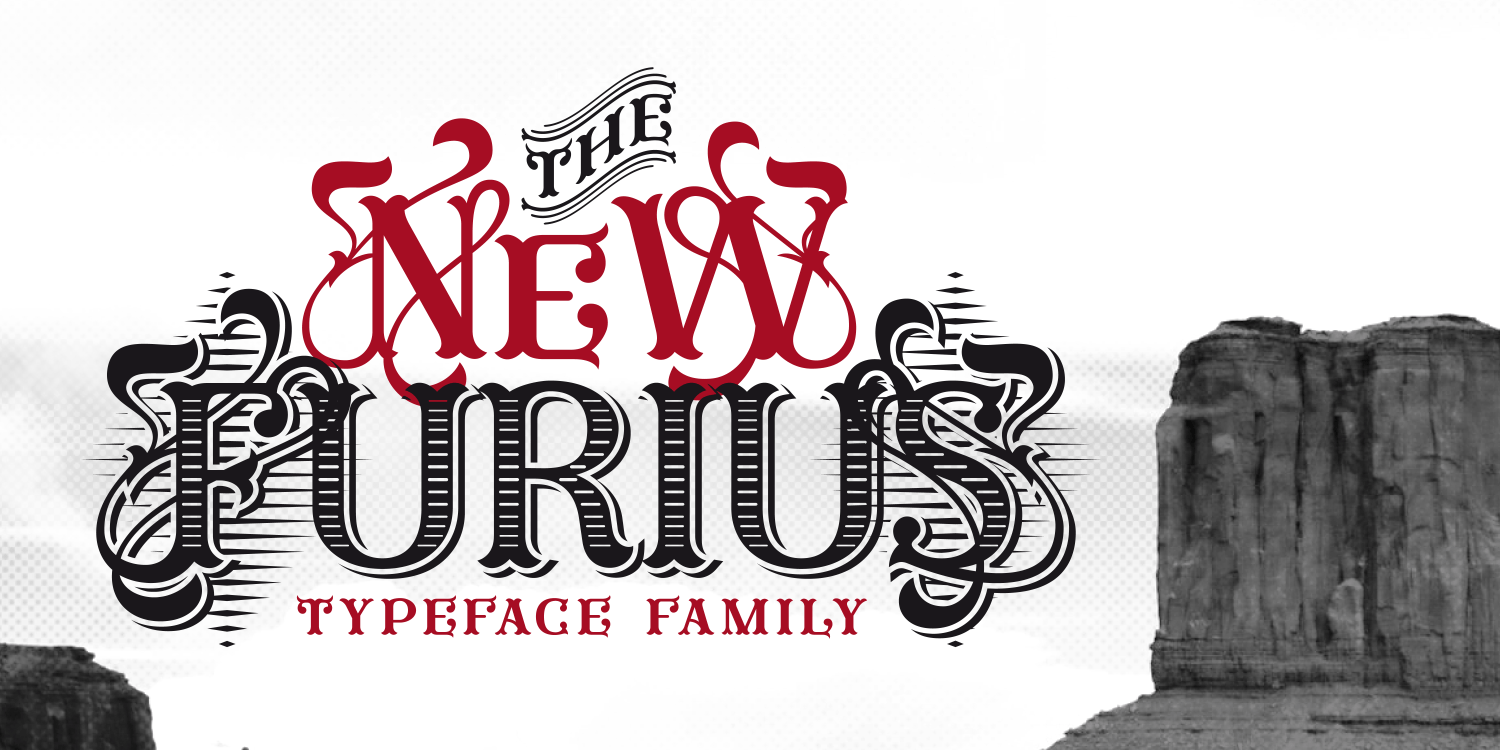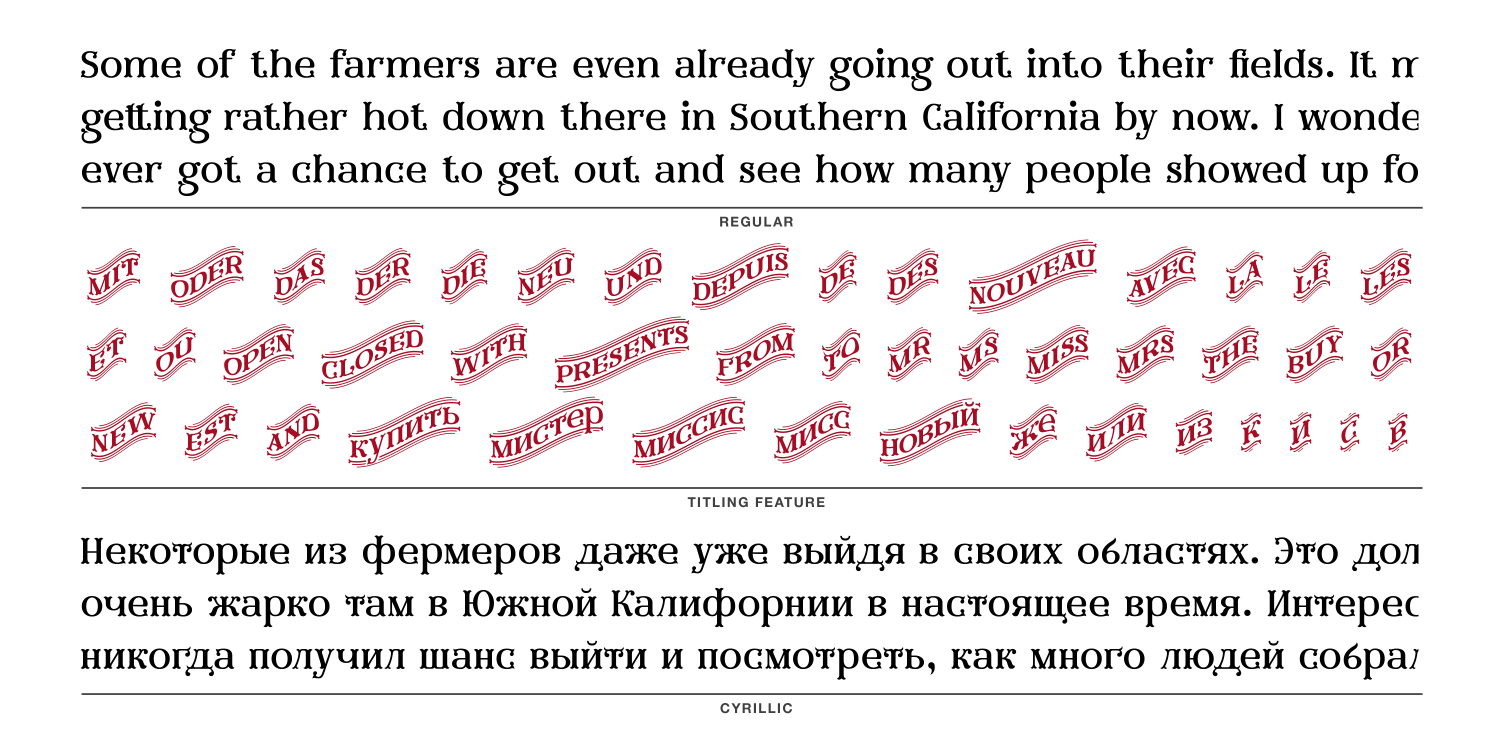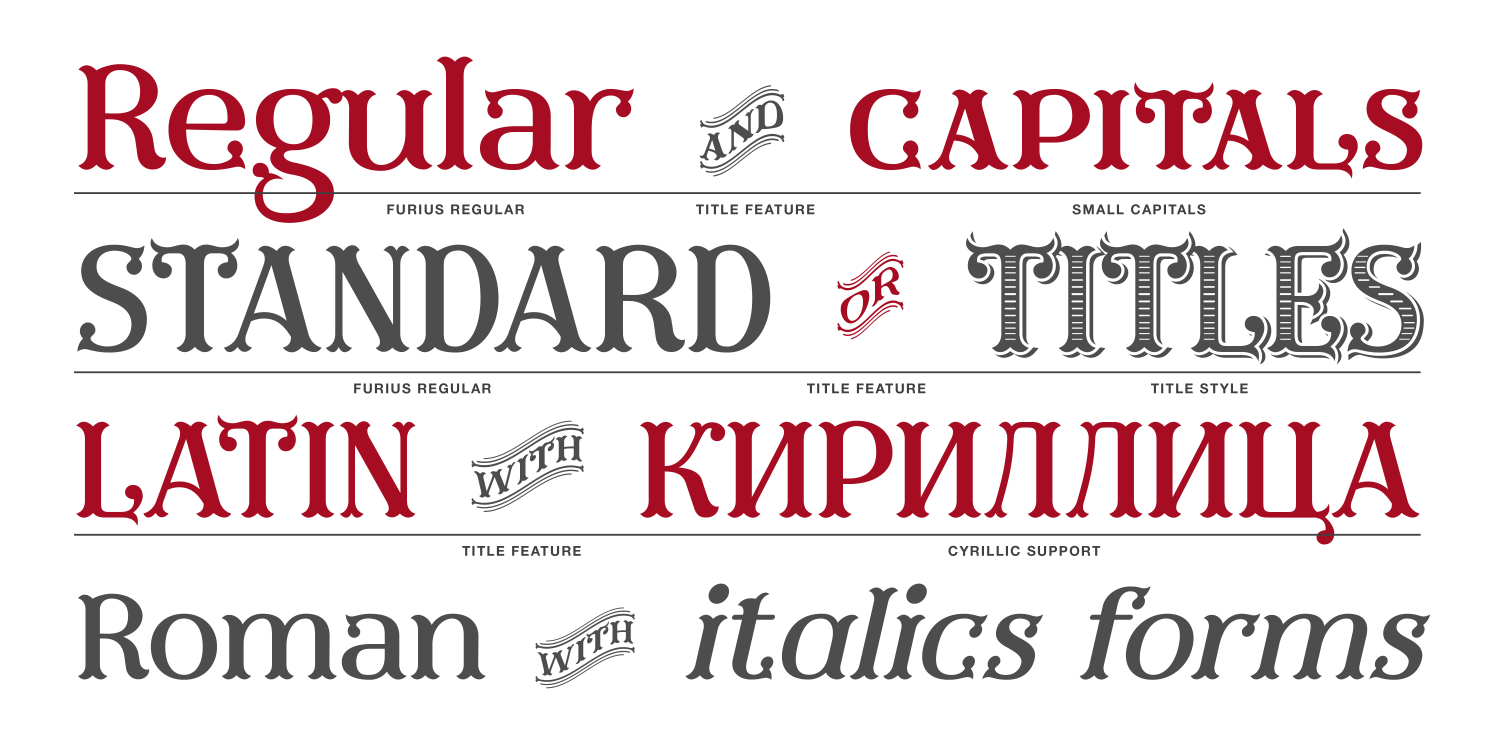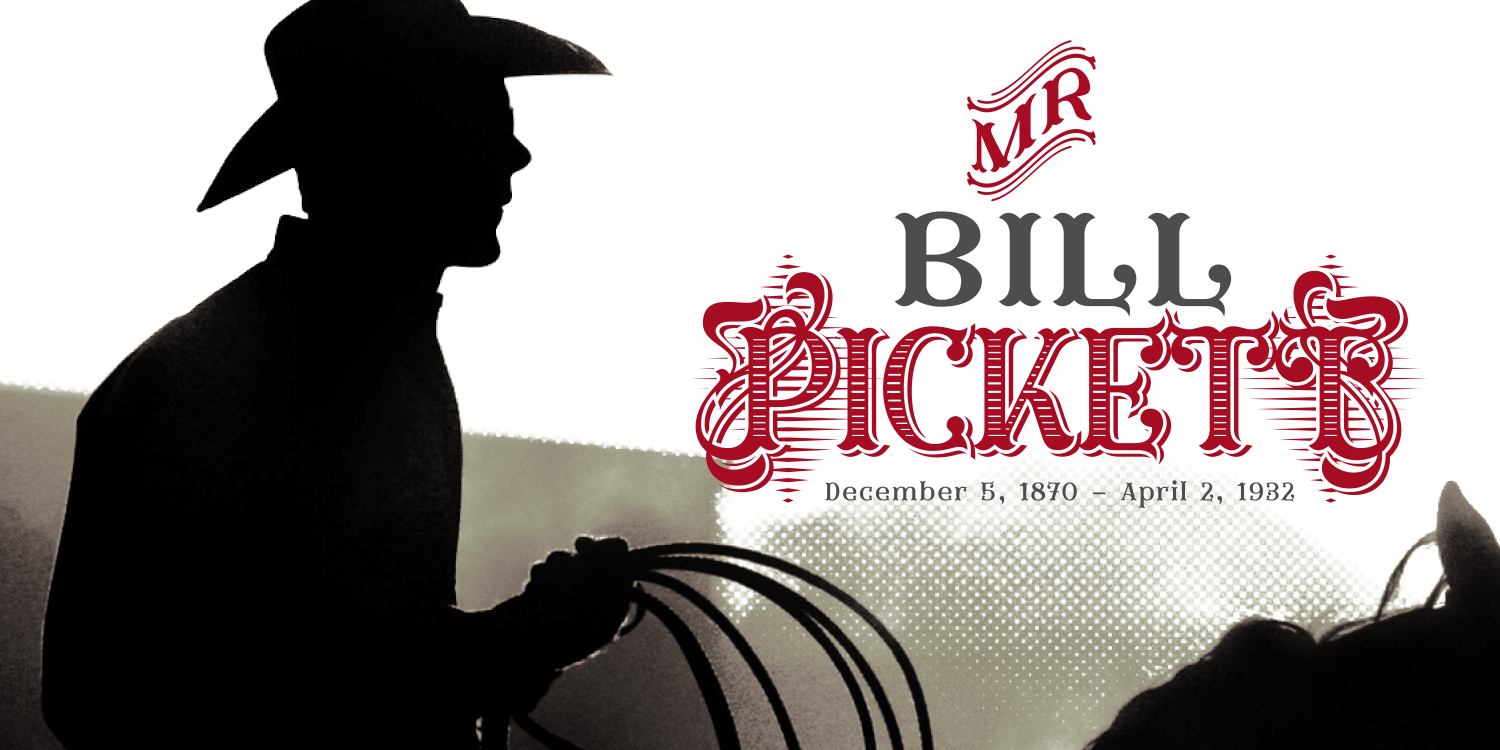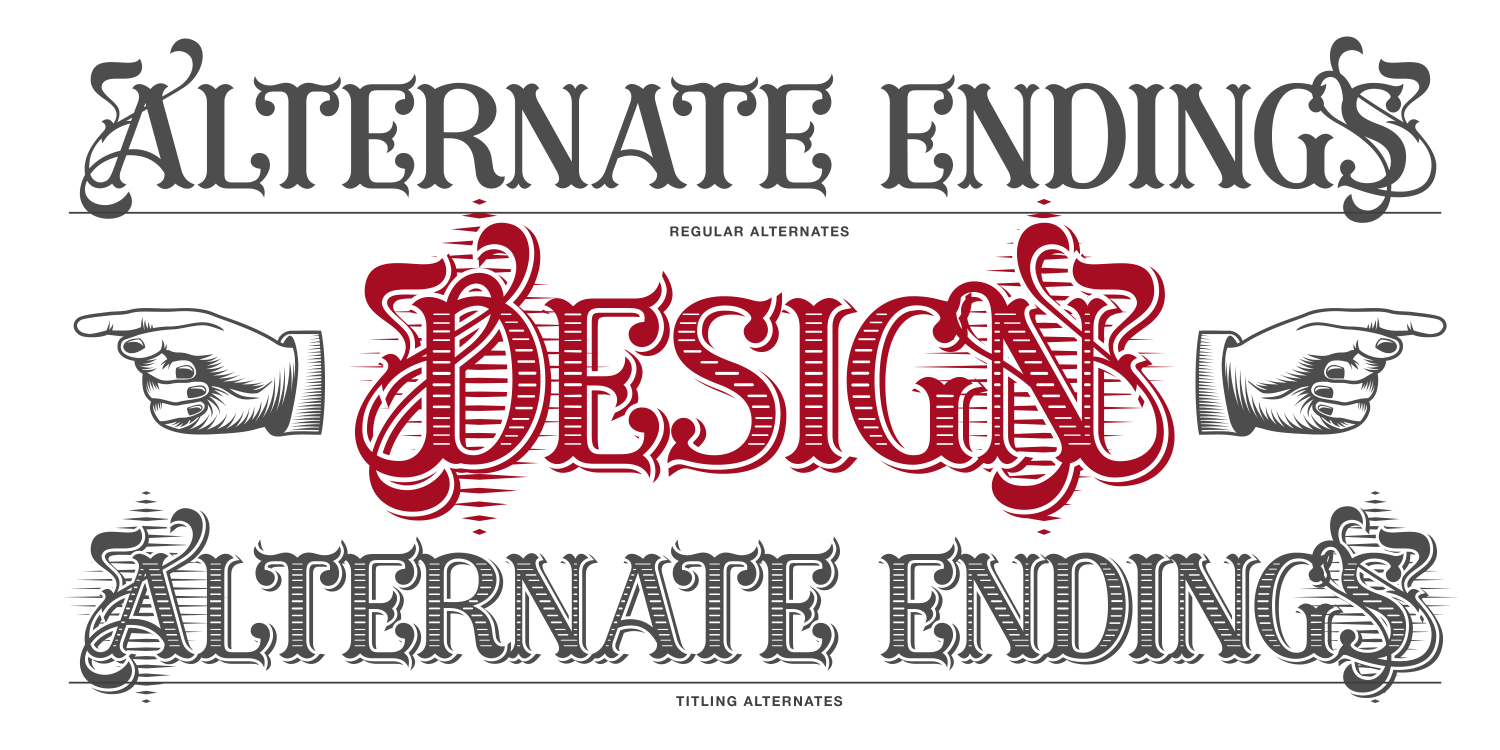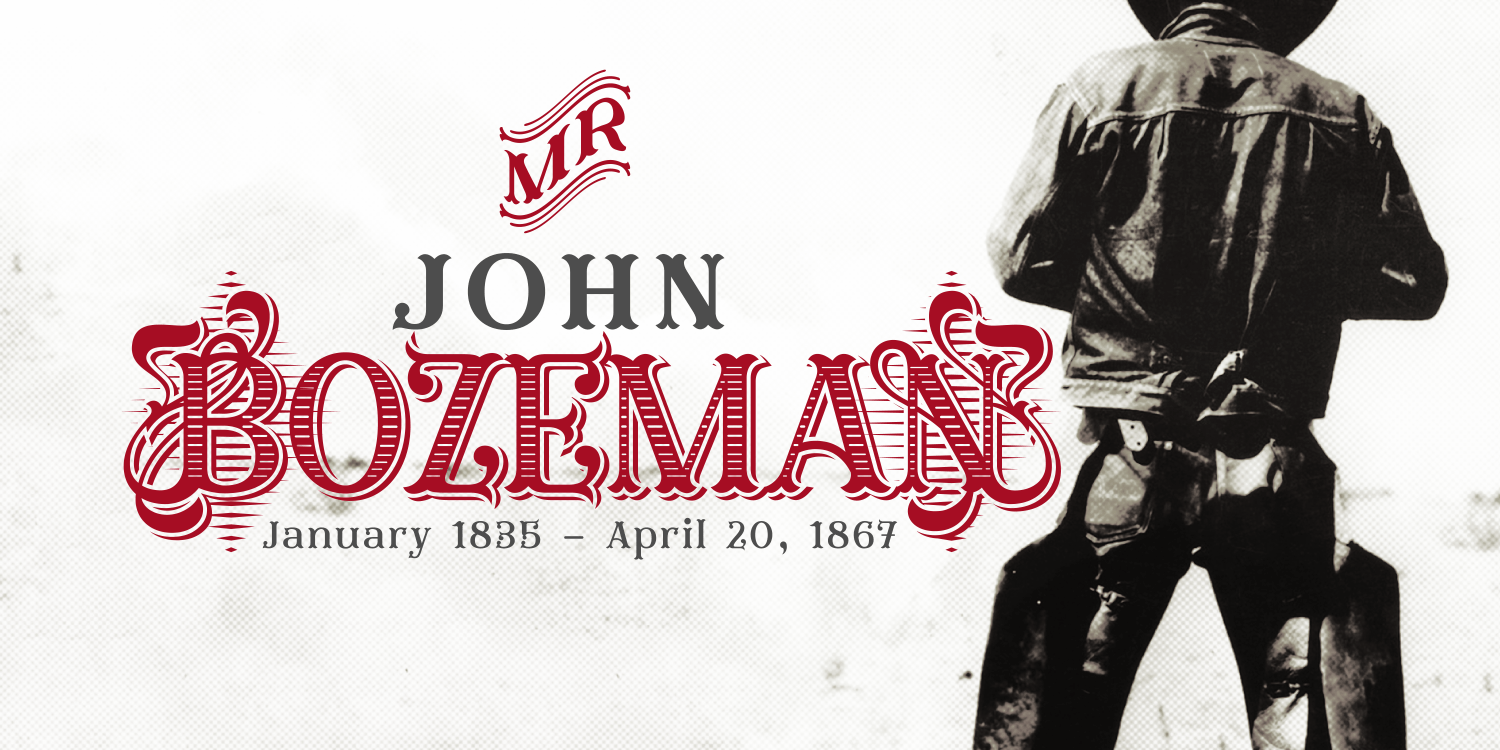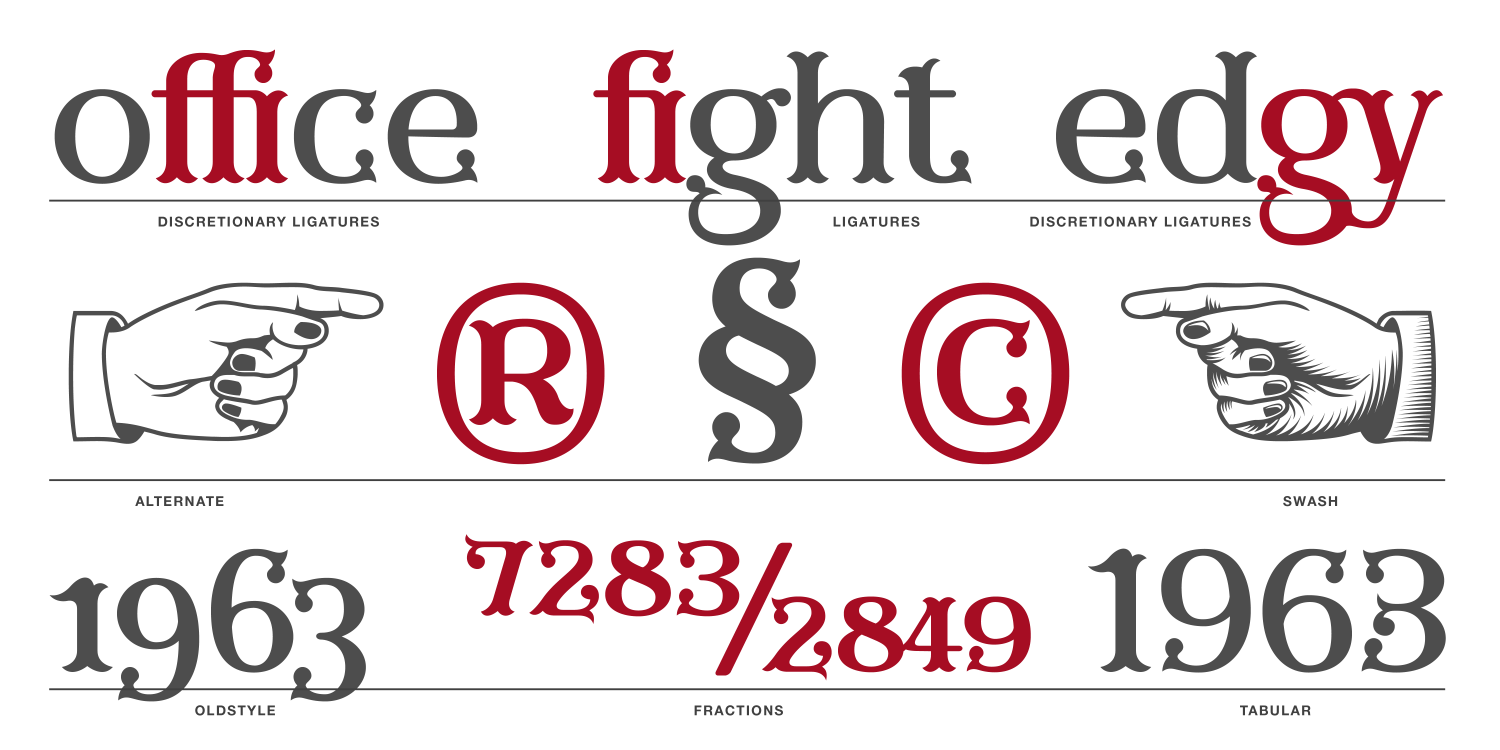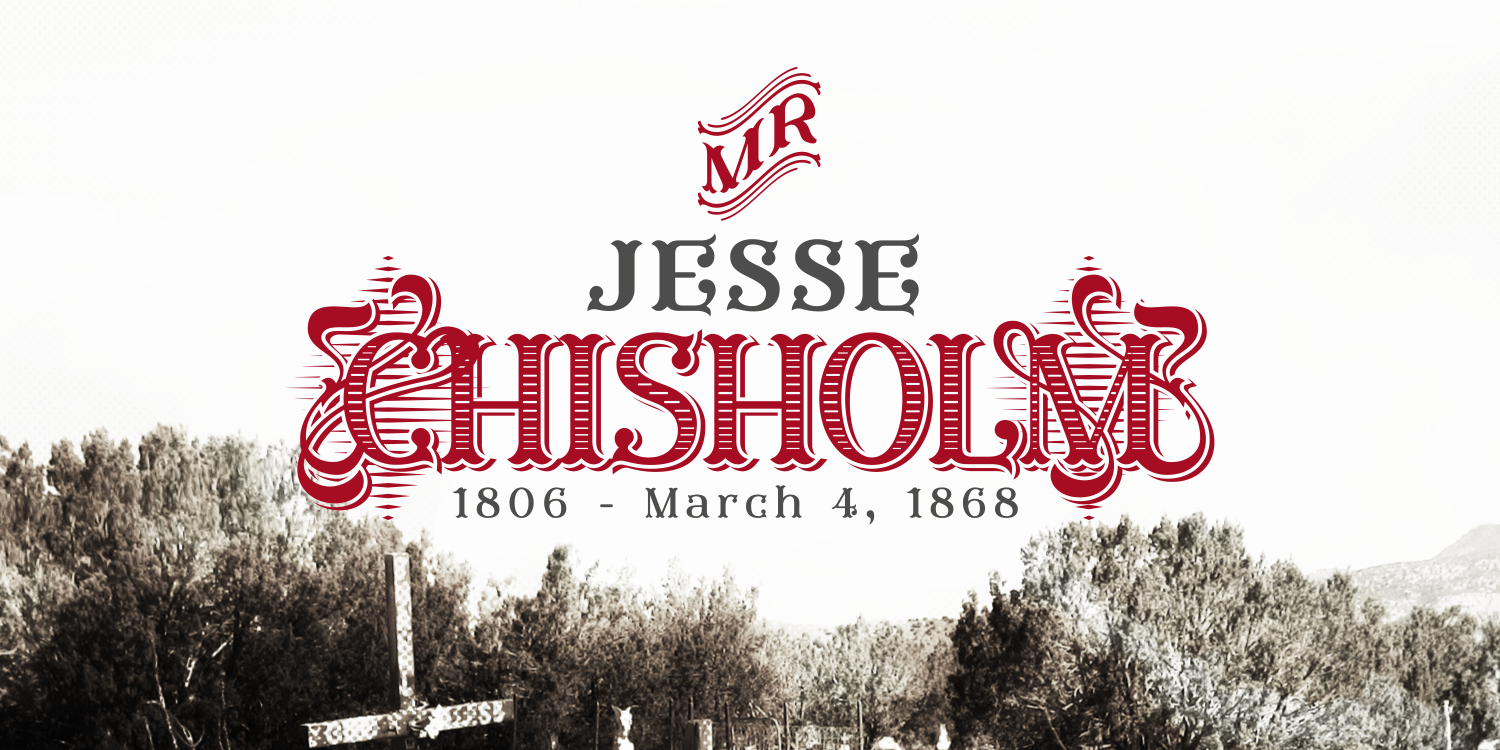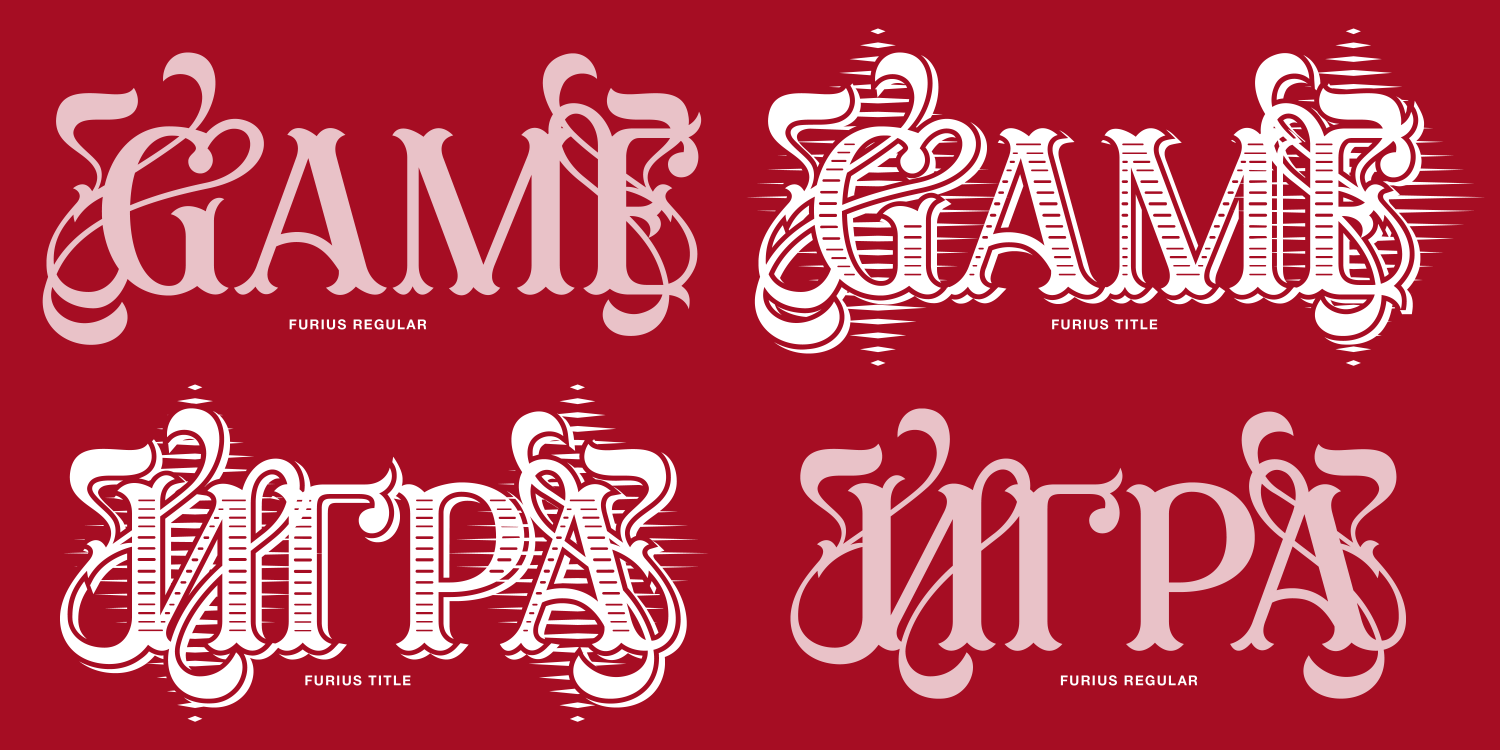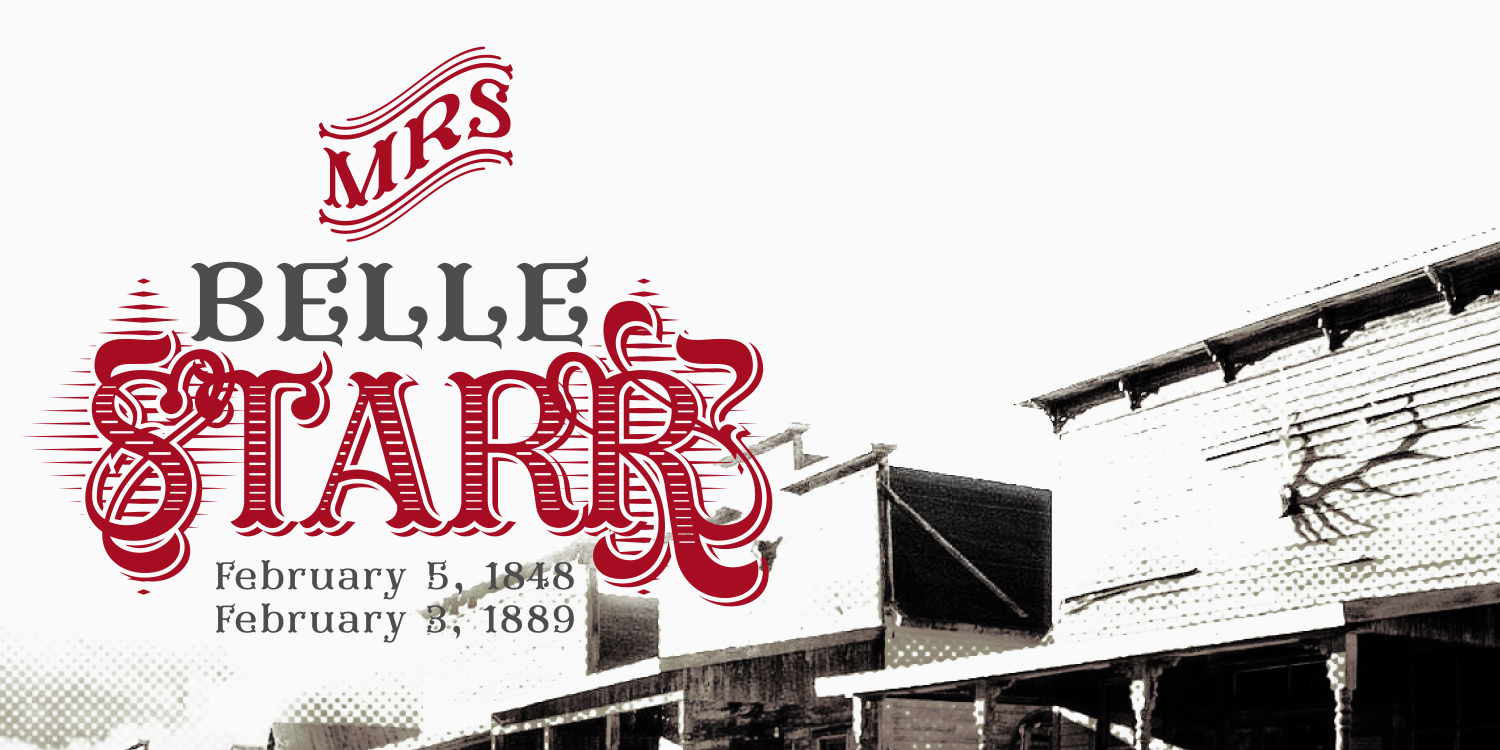
Furius
Font Family by Typogama
Furius is a display typeface inspired by the split serif style of woodcut or chiseled letters found in roman inscriptions and later popularized by the western genre in the United States. Created as a display typeface, Furius combines a host of Opentype features and equally incorporates a full extended latin and cyrillic character set to provide a versatile and complete design solution.